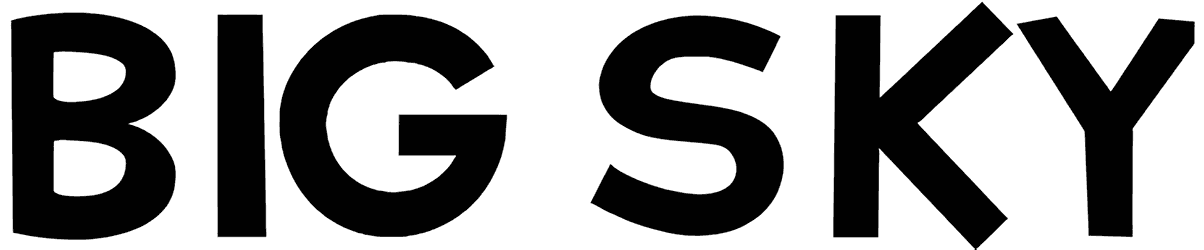
Big Sky Font
Designed byKristian Larsen
Sometimes, adding a bit of innovation to a casual sans serif font would turn it into a lovely masterpiece, such as Big Sky, which comes with crooked characters and leads to a sense of playfulness, approachability, or captivation. Since the letters of this rounded font are boldly designed, it would look really suitable for creating posters, illustrations, flyers, brochures, or gift cards.